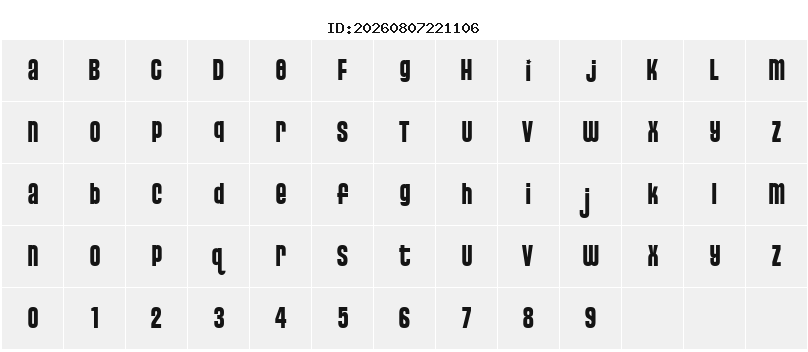
Pussycat Preview
• Font Name: Pussycat
• Font Style: Snickers
• Font ID: Macromedia Fontographer 4.1.3 Pussycat Snickers
• Full Font Name: Pussycat Snickers
• Version: Macromedia Fontographer 4.1.3 6/30/00
• PostScript Name: PussycatSnickers
• Character Count: 241
About Pussycat.ttf
Pussycat.ttf is a modern, elegant sans-serif font designed for ultimate readability and visual harmony. Perfect for branding, headlines, web design, and print materials.